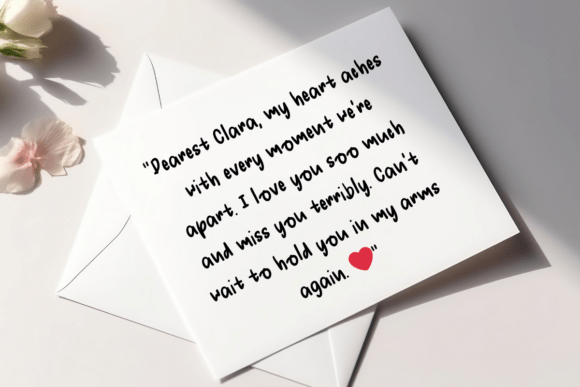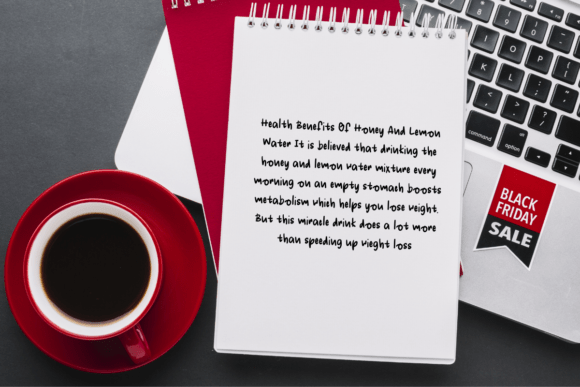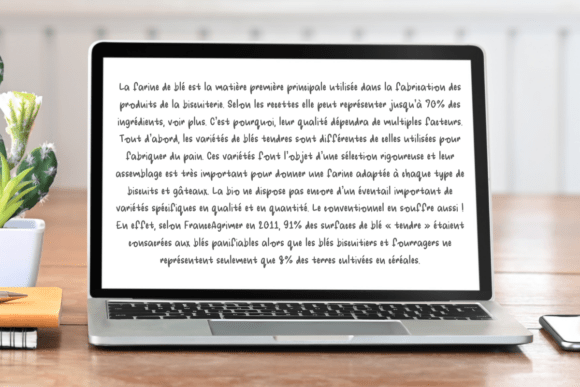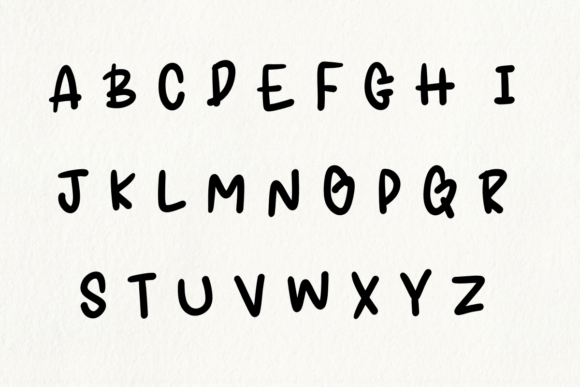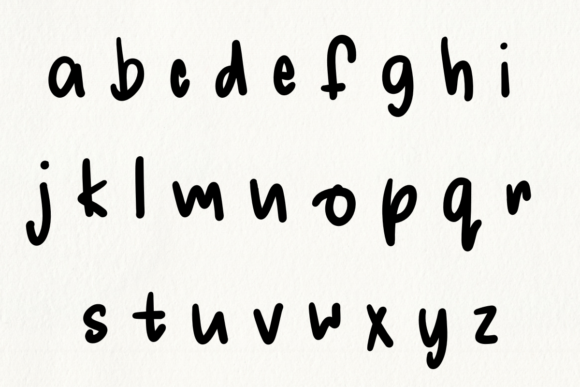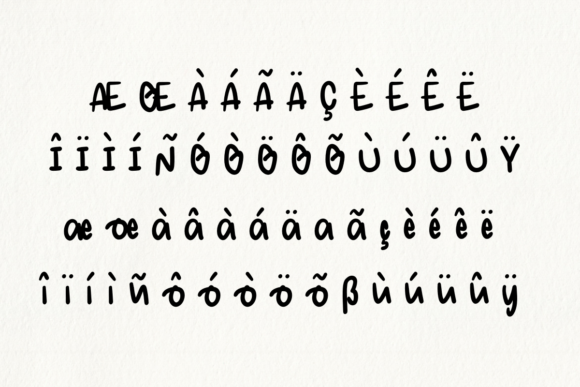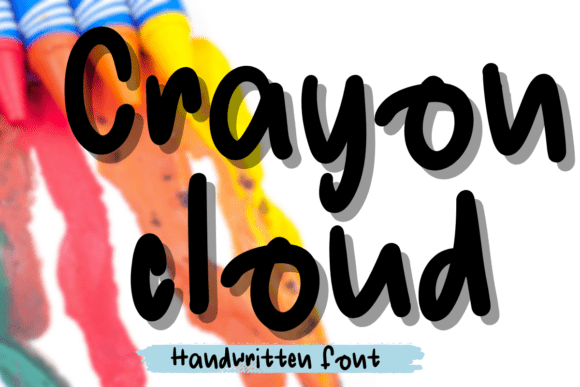
Crayon Cloud Font: The Perfect Addition to Your Design Arsenal
Are you tired of using the same old fonts in your designs? Look no further than the Crayon Cloud Font, a playful and soft handwritten font that’s sure to add a touch of whimsy to your projects. Inspired by children’s crayon doodles and fluffy clouds, this font is perfect for designers and crafters who want to create fun and engaging content for kids and adults alike.
The Inspiration Behind Crayon Cloud
Crayon Cloud is a font that’s all about embracing the imperfections and charm of childhood creativity. The rounded, friendly strokes of this font are reminiscent of crayon doodles, while its soft and airy feel is inspired by fluffy clouds. The result is a font that’s both playful and approachable, making it perfect for a wide range of design projects.
What Can I Use Crayon Cloud For?
Crayon Cloud is a versatile font that can be used for a variety of design projects, including:
• Kids’ projects: Create fun and engaging educational materials, such as worksheets, activity sheets, and coloring pages.
• School printables: Add a touch of personality to your school printables, such as certificates, awards, and newsletters.
• Digital planners: Use Crayon Cloud to create fun and functional digital planners, journals, and organizers.
• Logos: Create a playful and memorable logo for your business or brand.
• Greeting cards: Add a personal touch to your greeting cards, invitations, and party decor.
Language Support
Crayon Cloud is a font that supports multiple languages, including:
• Spanish
• Italian
• French
• German
• Portuguese
This makes it a great option for designers and crafters who create content for a global audience.
Why Choose Crayon Cloud?
So why choose Crayon Cloud over other fonts? Here are just a few reasons:
• Unique and playful design: Crayon Cloud is a one-of-a-kind font that’s sure to stand out in your designs.
• Versatile: This font can be used for a wide range of design projects, from kids’ materials to logos and greeting cards.
• Easy to read: Despite its playful design, Crayon Cloud is easy to read and understand, making it perfect for body text and headings.
• Language support: With support for multiple languages, Crayon Cloud is a great option for designers and crafters who create content for a global audience.
Tips for Using Crayon Cloud
Here are a few tips for getting the most out of Crayon Cloud:
• Pair with bold fonts: Crayon Cloud works well when paired with bold, sans-serif fonts. Try using it with a font like Arial or Helvetica.
• Use in combination with images: Crayon Cloud is a great font to use in combination with images, especially illustrations or photographs of kids.
• Experiment with colors: Crayon Cloud looks great in a variety of colors, from bright and bold to soft and pastel.